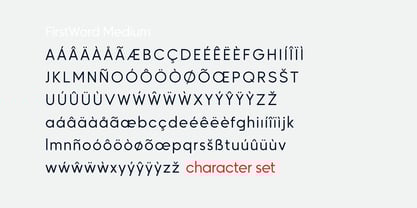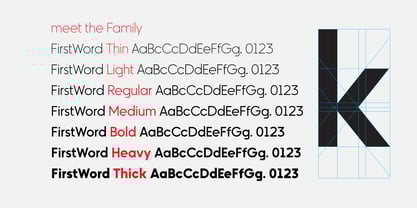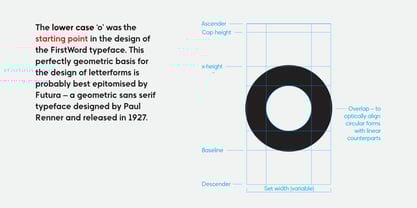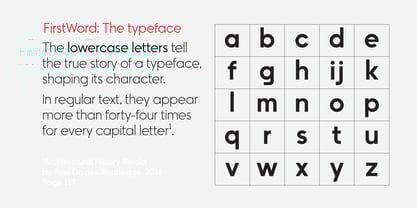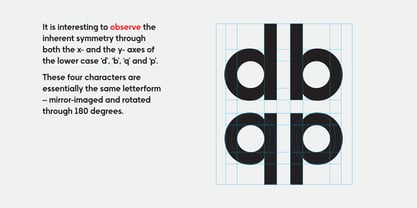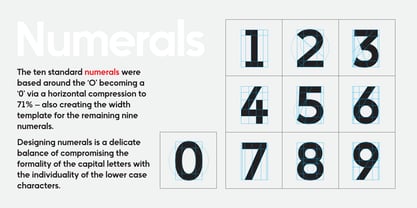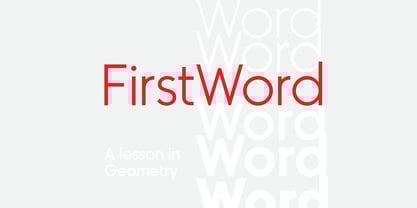
FirstWord
by Andy Peat
FirstWord: A Balance of Geometry and Expression
FirstWord is a geometric typeface born from a deep appreciation for the subtle complexities of letterforms. Both precise and expressive, it balances the clean, structured aesthetics of geometric typography with subtle nods to neo-grotesque forms.
One of the biggest challenges in its creation was refining the relationship between letterforms and punctuation. Small details—such as the shape of the full point, comma, and quotation marks—can dramatically impact a typeface’s overall character.
The result is a typeface that feels both timeless and contemporary, designed for clarity in both print and digital applications. Every detail, from the numerals to the punctuation, has been crafted with purpose—refining the intersection of geometric precision and humanist warmth.
About Andy Peat
Andy Peat is an independent type designer, graphic designer and artist. Starting fresh in 2022 – and bringing over twenty years of experience in branding, literature and product packaging. I've discovered a new love for the written word and the details that each character brings, I am now releasing fonts that I love to make. I aim to deliver creative, innovative and professional typefaces for print and digital use. I hope you enjoy using them as much as I enjoyed creating them.